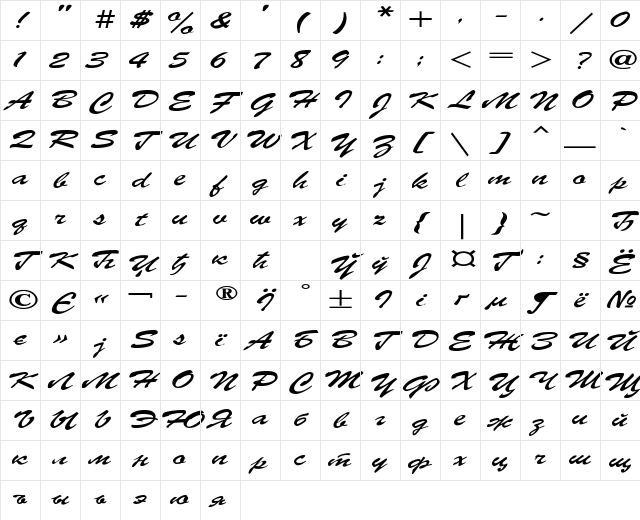
Parsek Expanded Regular
Design Context for Parsek Expanded
Parsek Expanded is a composed and adaptable typeface that performs quietly and consistently across a wide range of design contexts.
Pro Tip: Use Parsek Expanded in both headline and body roles to test its range before committing to a single application.